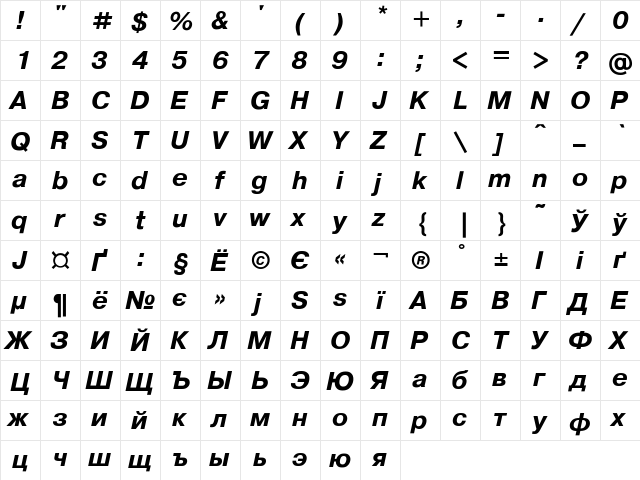
Pragmatica Bold Italic
Design Context for Pragmatica Typeface
Pragmatica is a composed and adaptable typeface that performs quietly and consistently across a wide range of design contexts. The dynamic lean of this cut emphasises speed and emphasis in any layout. Its bold stroke weight gives it real presence on the page.
Pro Tip: Try Pragmatica for annotation and caption copy alongside an upright companion — the contrast in angle creates a dynamic but ordered typographic system.